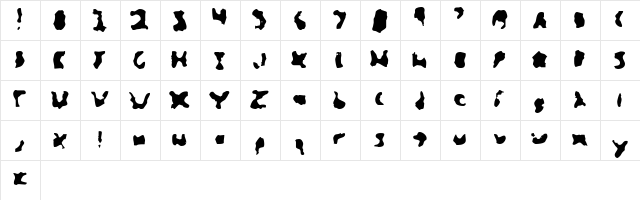
Glimmer Regular
| Foundry | bionictype |
| Designer | john |
Design Context for Glimmer Typeface
Glimmer is a composed and adaptable typeface that performs quietly and consistently across a wide range of design contexts.